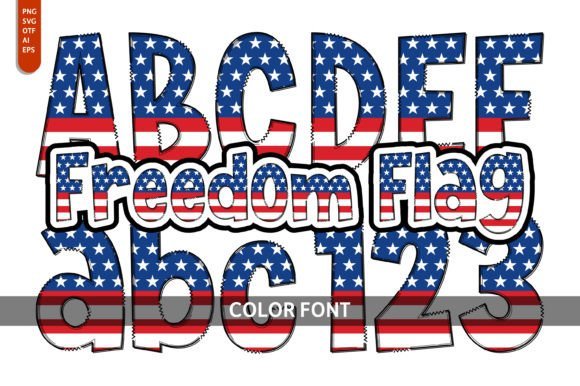
The Power of Patriotism: Unveiling the Freedom Flag Font
As a designer, have you ever been tasked with creating a project that embodies the spirit of patriotism and national pride? Perhaps you’re working on a Fourth of July-themed graphic, or maybe you’re designing a logo for a company that values freedom and unity. Whatever the project, I’m sure you’ll agree that the right font can make all the difference. That’s where the Freedom Flag Font comes in – a stunning decorative font that captures the essence of the American flag and the ideals it represents.
This versatile font is not just a pretty face; it’s a powerful tool that can add depth and meaning to your designs. With its unique design and compatibility with popular design software, the Freedom Flag Font is an invaluable resource for designers looking to infuse their projects with a sense of patriotism and national pride. Whether you’re a seasoned pro or just starting out, this font is sure to inspire your creativity and help you create designs that truly stand out.
Key Features of Freedom Flag Font
- Unique Characteristics: The Freedom Flag Font features a bold, modern design inspired by national flags, making it perfect for patriotic themes and designs.
- Character Set: The font includes a comprehensive set of characters, including uppercase and lowercase letters, numbers, and punctuation marks.
Freedom Flag Font Review
I recently had the chance to work with the Freedom Flag Font, and I must say it’s an interesting combination of patriotic flair and modern design.
- Familiarity – The font is immediately recognizable, making it perfect for designs that require a clear connection to the American flag or patriotic themes.
- Versatility – Despite its strong association with patriotism, the font can be used in a variety of contexts, from branding to editorial content.
- High-Quality Rendering – The font is crisp and clean, even at smaller sizes, making it suitable for a wide range of applications.
- Limited Expressiveness – The font’s strong association with patriotism can make it difficult to use in designs that require a more subtle or nuanced approach.
- Lack of Distinctiveness – The font’s style is somewhat generic, which may make it harder to stand out in crowded design spaces.
While the Freedom Flag Font has its limitations, it’s a solid choice for designs that require a clear connection to patriotism or American themes. With careful use and consideration, it can add a touch of familiarity and authority to your work.
For a patriotic look, pair the Freedom Flag Font with red, white, and blue colors.
Use the Freedom Flag Font to create bold, eye-catching headlines in your designs.
Use the Freedom Flag Font to add a touch of patriotism to your presentations and documents.
The Freedom Flag Font is perfect for:
- Patriotic designs and graphics.
- 4th of July celebrations.
- Memorial Day and Veterans Day tributes.
- USA-themed merchandise and branding.
With its bold, patriotic look, the Freedom Flag Font is sure to make your designs stand out.
Playfair Display is an elegant, luxurious serif font perfect for use in high-end designs such as luxury branding, invitations, and advertising. Compared to Freedom Flag Font, Playfair Display has a more refined and sophisticated feel, making it suitable for designs that require a sense of opulence and elegance.